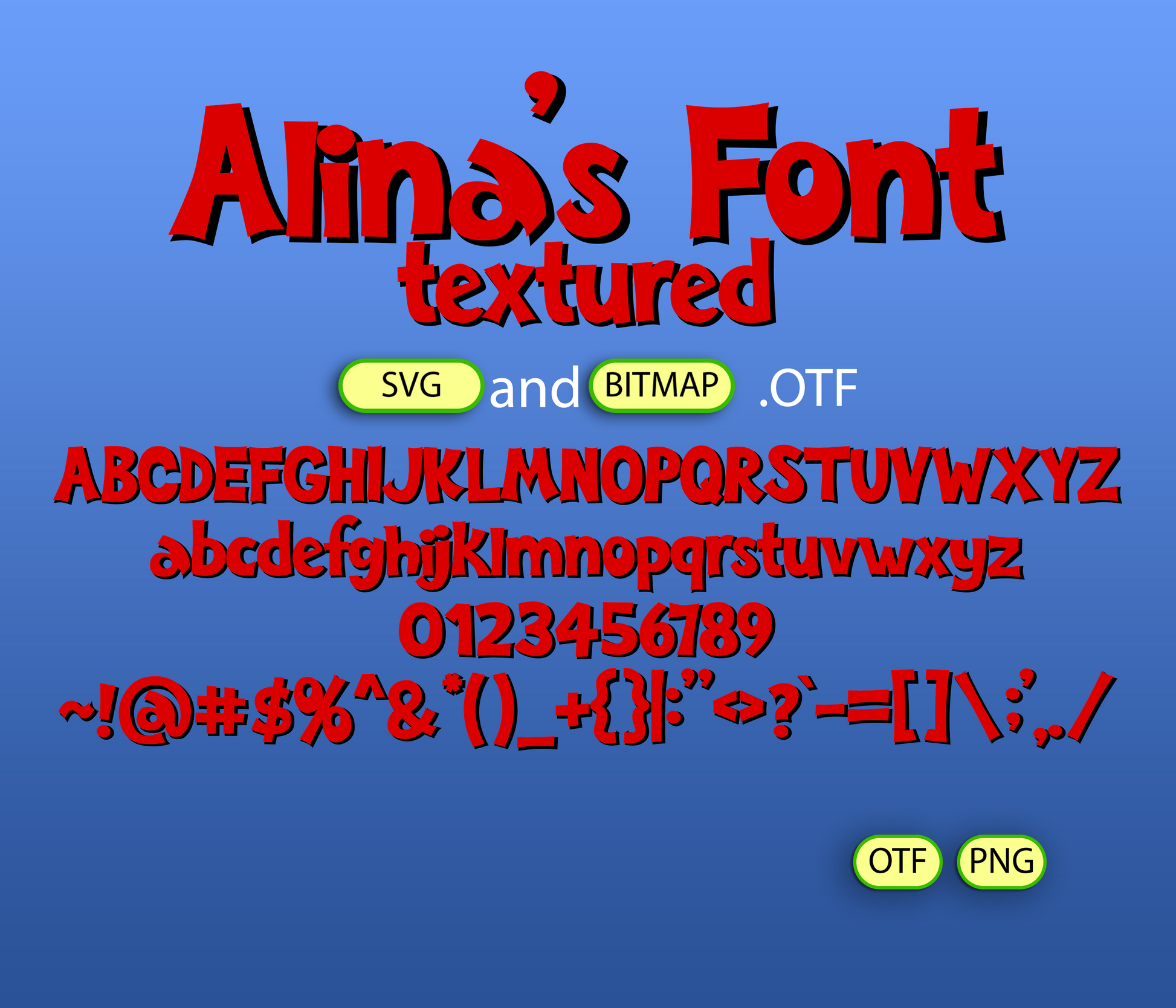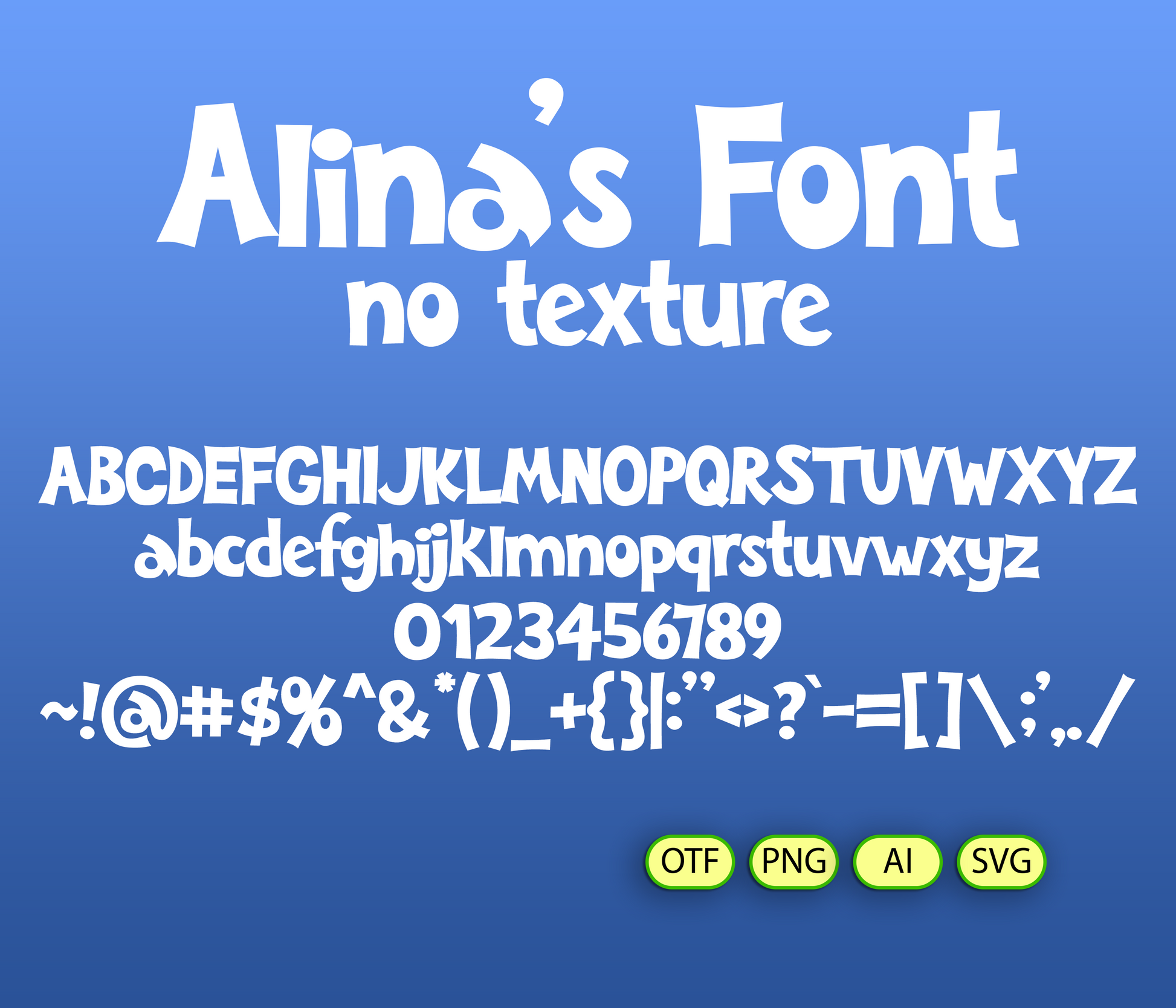
Wonder Scholar Bus Font Textured
Step into the extraordinary world of mobile education with our Wonder Scholar font, capturing the excitement of a class that travels anywhere - from inside a human body to the depths of space! This specially crafted typeface brings to life the magic of learning through fantastical journeys, perfect for educators, content creators, and anyone wanting to add scholastic adventure to their projects.
Our Wonder Scholar font features bouncy, energetic characters that reflect the thrill of unconventional learning adventures. Ideal for:
1. Science Education: Create dynamic worksheets, experiment guides, and learning materials that make complex concepts accessible and fun
2. Class Adventures: Design exciting invitations, posters, and banners for field trips, science fairs, and classroom transformations
3. Teaching Resources: Develop engaging presentations, diagrams, and educational aids that take students on incredible learning journeys
4. Digital Learning: Transform educational platforms, blogs, and social media with headers and graphics that spark scientific curiosity
5. Classroom Magic: Perfect for decorating learning spaces, creating science club materials, and crafting educational displays that inspire wonder
Our font celebrates the joy of discovery and the thrill of learning through extraordinary experiences. Whether you're creating materials for classroom experiments, designing educational resources, or adding whimsical charm to teaching tools, this font takes your projects on an amazing journey through the world of knowledge.